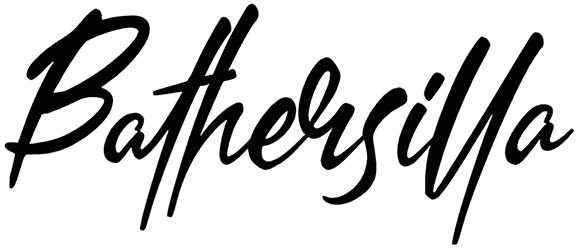
Bathersilla Font
Bathersilla is the perfect handwritten brush font if you want to convey an air of casualness to your readers. Although it may be difficult to read, a more natural feel may be added to your digital projects thanks to the way all the characters blend into one another.
Letters, flyers, and invitation/greeting cards may all benefit from this. You should install this script font if you like a good challenge and value making a good impression on your client.